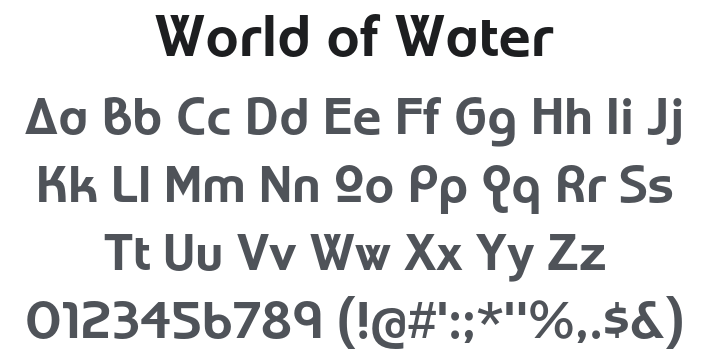
World of Water Font
About World of Water
World of Water is a sleek Art Nouveau display sans-serif from an alternate universe — angular shapes and sharp edges give it a sense of dynamic movement, while the geometric construction keeps it futuristic and precise. The collision of organic Art Nouveau sensibility with minimalist techno structure creates a beautifully unexpected elegance. Perfect for luxury branding, fashion editorial, architectural signage, sci-fi titles, and any design needing distinctive, otherworldly sophistication.